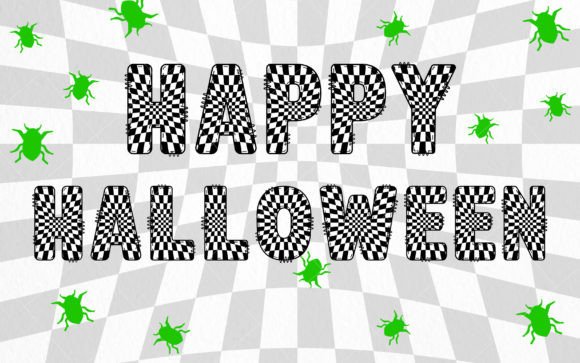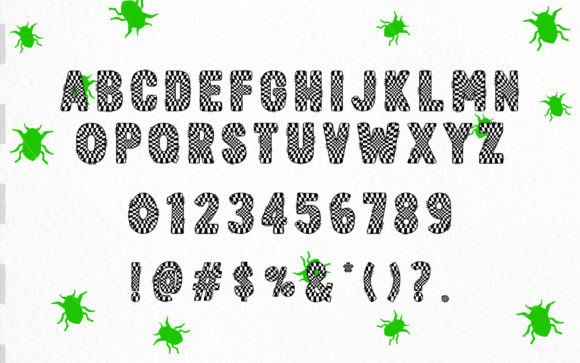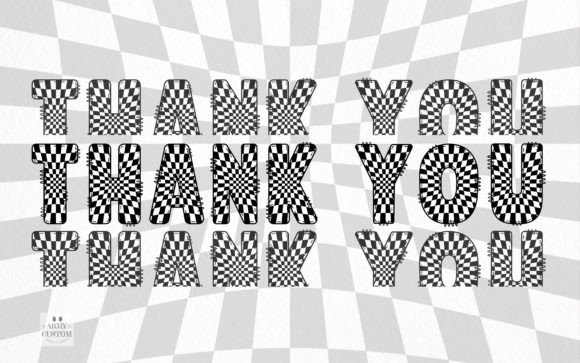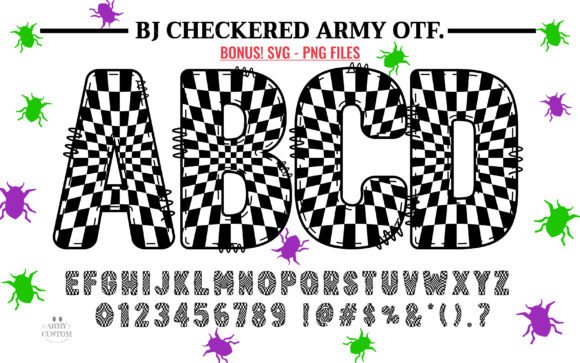
Unleash the Magic of Checkered Army Font: A Vibrant Toolkit for Creative Expression
Are you ready to add a touch of magic to your creations? Look no further than the Checkered Army Font, a spellbinding and distinct Halloween-themed font that’s sure to captivate your audience. This versatile font is perfect for enhancing arts and crafts projects, adding a unique charm to scrapbooking endeavors, or infusing personality into stationery and cards.
A World of Creative Possibilities
The Checkered Army Font is more than just a font – it’s a vibrant toolkit for all your creative needs. With its bold, checkered design, this font is ideal for creating eye-catching blog banners, backgrounds, and wall art that will leave a lasting impression. Whether you’re a designer, crafter, or DIY enthusiast, this font is sure to inspire you to new creative heights.
Bringing Your Creations to Life
With the Checkered Army Font, you can add a touch of personality to any project. Imagine creating:
- Enchanted blog banners that grab attention and draw readers in
- Mesmerizing wall art that transforms any room
- Unique scrapbooking pages that tell a story
- Personalized stationery and cards that make a lasting impression
Tips and Tricks for Using the Checkered Army Font
To get the most out of the Checkered Army Font, here are a few tips and tricks to keep in mind:
- Experiment with different colors and combinations to find the perfect look for your project
- Use the font to create custom graphics, logos, and icons
- Pair the font with other Halloween-themed fonts and graphics for a spooky effect
- Don’t be afraid to get creative and try new things – the Checkered Army Font is all about experimentation and self-expression